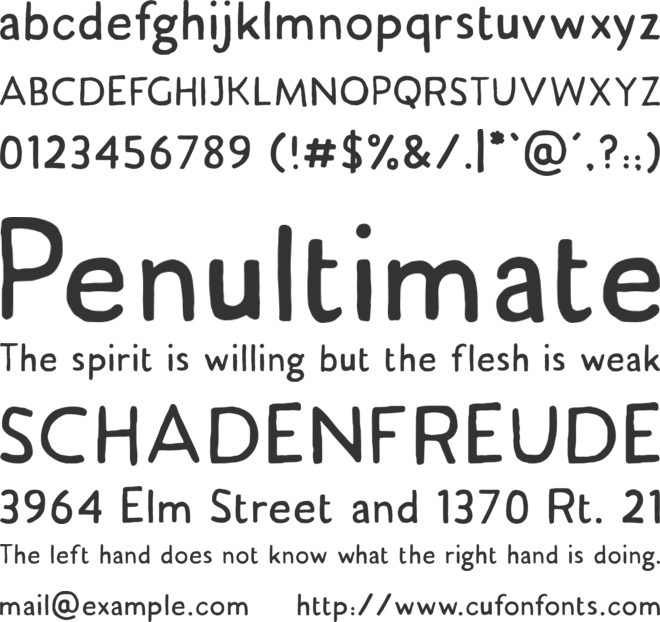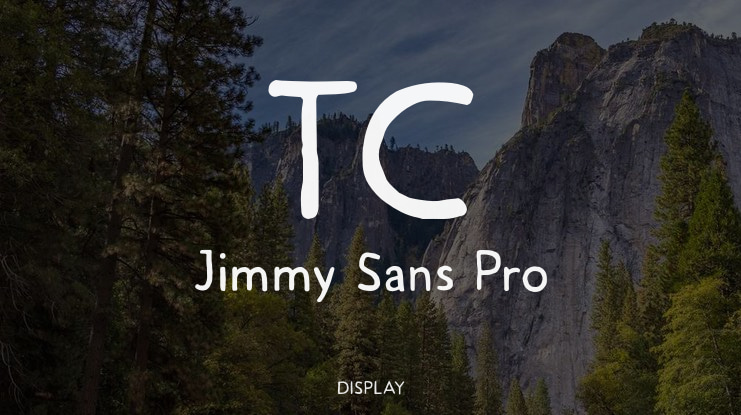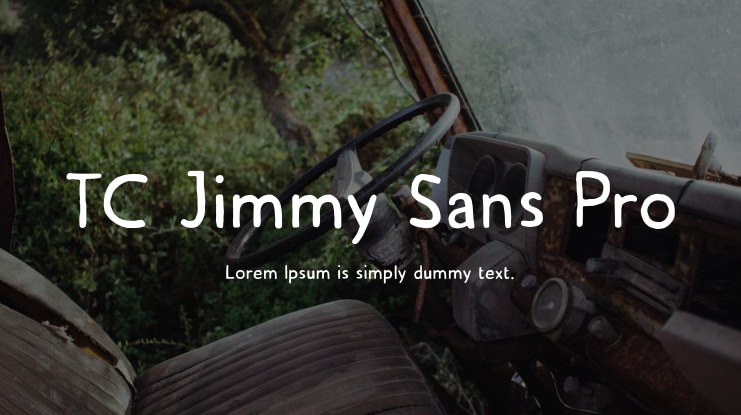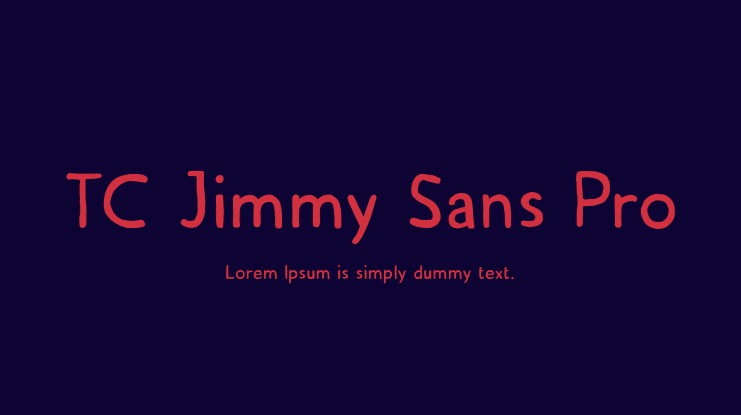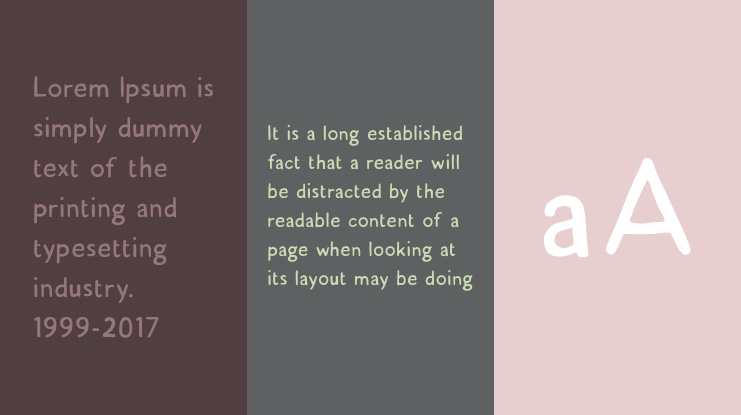
TC Jimmy Sans Pro Font
Full font description:
We proudly introduce TC Jimmy Pro Sans – the perfect complementary sans-serif for your growing handcrafted font collection. This handwritten typeface is designed specifically to look great in smaller sizes, a tough task for most handwritten fonts on the market.
Designed out of Necessity – As a creator of handmade fonts, I needed a sans-serif that maintained that desirable handwritten look at smaller sizes for use within presentation images (like the ones you see above). This typeface would be a significant help when integrating a variety of typography into designs I frequently work on (and I imagine the same for you!).
Originally launched in 2014, Jimmy Sans has become one of my most popular fonts. With this PRO release, lowercase glyphs and additional multilingual support have been added.